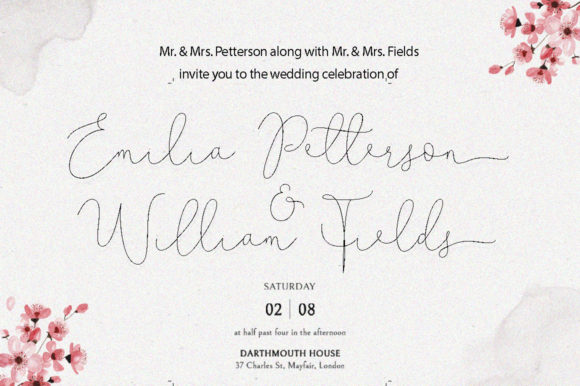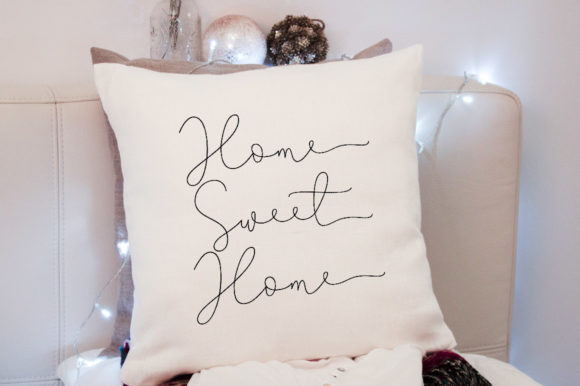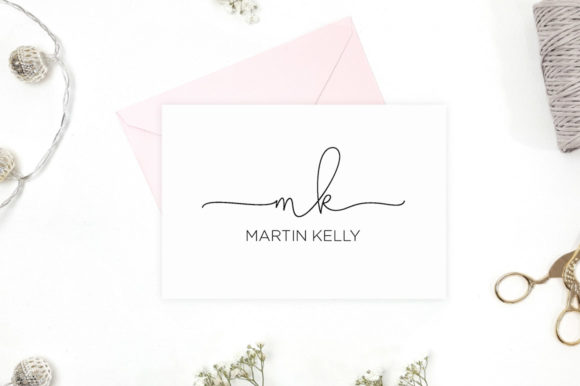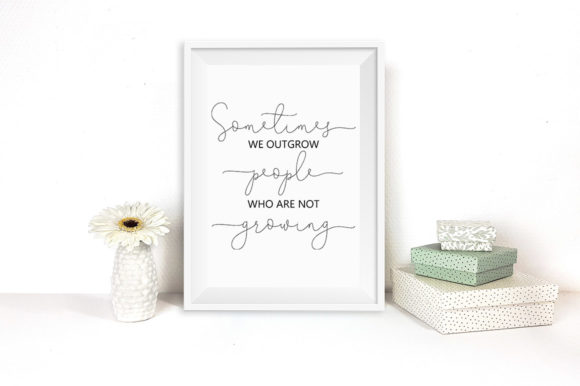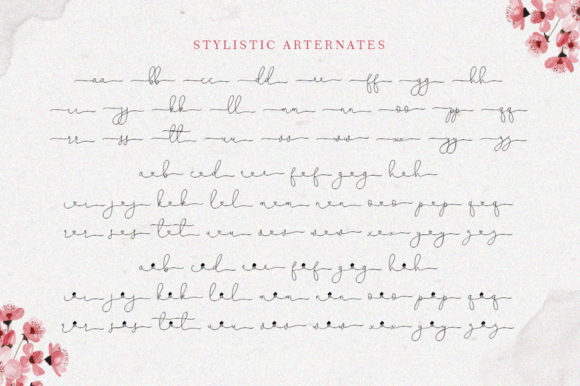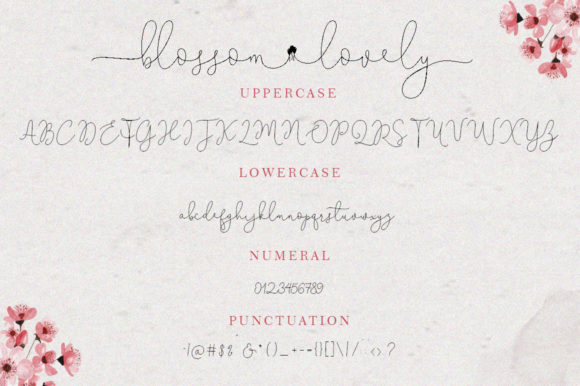
Adding a Touch of Whimsy with the Blossom Lovely Font
Have you ever been browsing through a beautifully designed wedding invitation or a heartfelt thank you card and thought, “How did they make it look so effortlessly elegant?” The answer lies in the right choice of font – and for designers looking to add a touch of whimsy to their projects, the Blossom Lovely Font is a game-changer.
As a unique and elegant handwritten font, the Blossom Lovely Font is perfect for designs that require a personalized style. From wedding invitations to greeting cards, logos, and more, this font brings a touch of sophistication and charm to any project. With its PUA encoding, accessing all the glyphs and swashes is a breeze, making it a valuable asset for designers looking to elevate their work.
- Unique Characteristics: Hand-drawn illustrations, delicate floral patterns, and elegant script
Blossom Lovely Font Review
First impressions are everything, and the Blossom Lovely Font definitely caught my eye with its delicate, hand-drawn style. ✨ I love how the font’s soft curves and gentle flourishes evoke a sense of whimsy and romance. ✨ The font is perfect for creating a dreamy, ethereal atmosphere in designs, making it ideal for projects like wedding invitations, floral-inspired branding, or children’s book illustrations.
However, as with any font, there are some limitations to consider. ⚠️ One of the main concerns is the font’s legibility, particularly at smaller font sizes. ⚠️ The delicate lines and flourishes can sometimes make it difficult to read, especially for those with vision impairments. ⚠️ Additionally, the font’s style can be a bit too ornate for some designs, overpowering the message or content.
In terms of overall impression, I’d say the Blossom Lovely Font is a great choice for designers who want to add a touch of elegance and sophistication to their projects. ✨ While it may not be suitable for every design, it’s a beautiful font that’s sure to impress when used thoughtfully. ✨ Here are some key features to consider:
- Delicate, hand-drawn style with soft curves and gentle flourishes
- Perfect for creating a dreamy, ethereal atmosphere in designs
- Ideal for wedding invitations, floral-inspired branding, or children’s book illustrations
- May be difficult to read at smaller font sizes due to delicate lines and flourishes
- Can be overpowering in designs where a more subtle font is desired
Use the Blossom Lovely Font for feminine and elegant designs.
Combine it with pastel colors and floral patterns for a cohesive look.
Experiment with different font sizes and styles to add emphasis and visual interest.
Women’s fashion and beauty branding.
Floral and botanical designs.
Alternatives to Blossom Lovely Font
Great Vibes is a beautiful, elegant script font perfect for creating a sophisticated and luxurious feel. It’s ideal for use in wedding invitations, luxury branding, and high-end advertising. Great Vibes has a more classic and refined look compared to Blossom Lovely Font, which has a softer, more whimsical feel.
Lovely Linda Font
Lovely Linda is a modern, elegant script font with a touch of vintage charm. It’s suitable for use in fashion branding, home decor, and stationery. Compared to Blossom Lovely Font, Lovely Linda has a more contemporary and playful feel, making it perfect for designers who want to add a modern twist to their projects.
Carolyna Pro is a elegant, modern script font with a sophisticated and luxurious feel. It’s ideal for use in high-end branding, luxury packaging, and premium advertising. Carolyna Pro has a more refined and polished look compared to Blossom Lovely Font, which has a softer and more delicate feel.